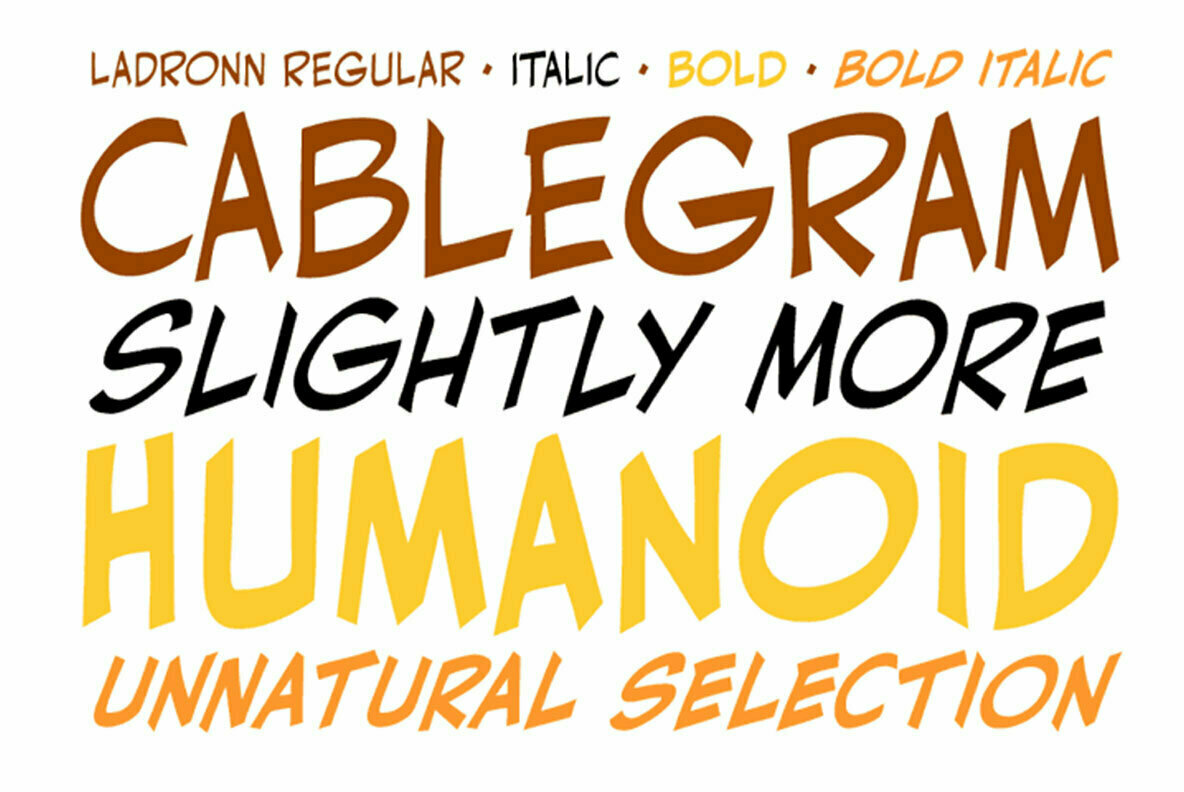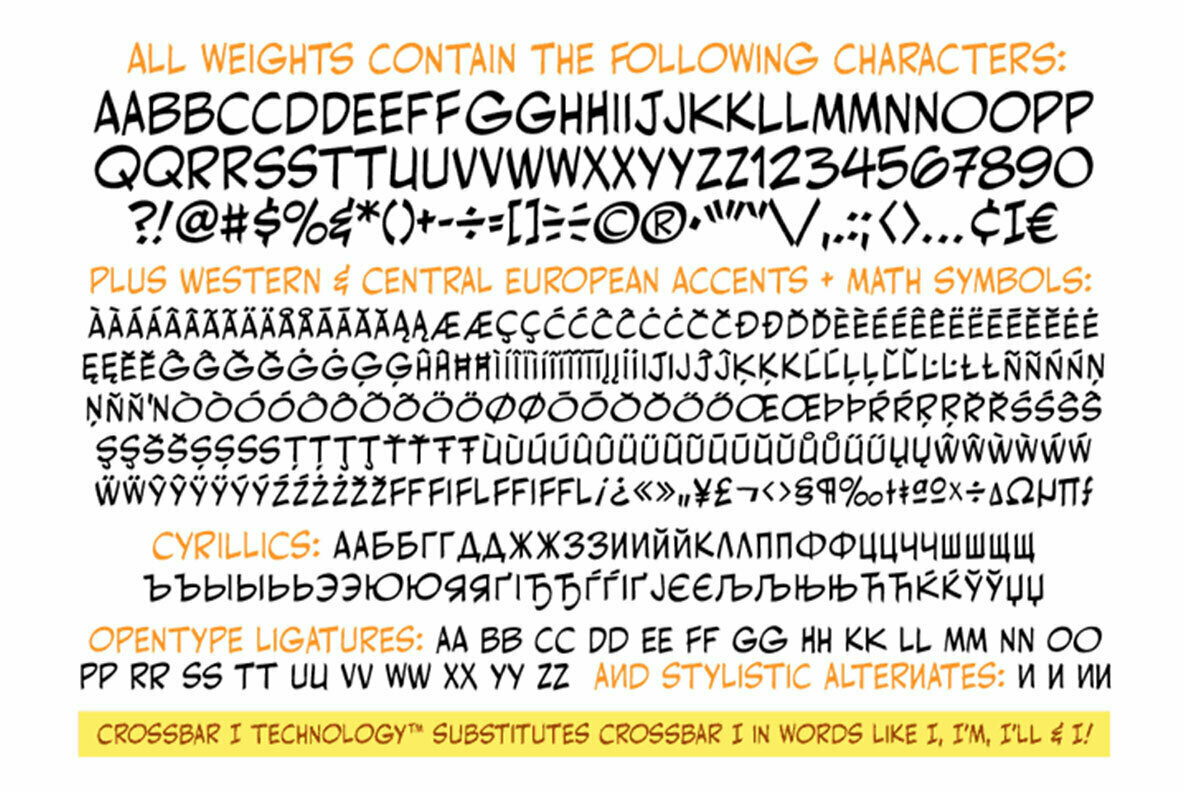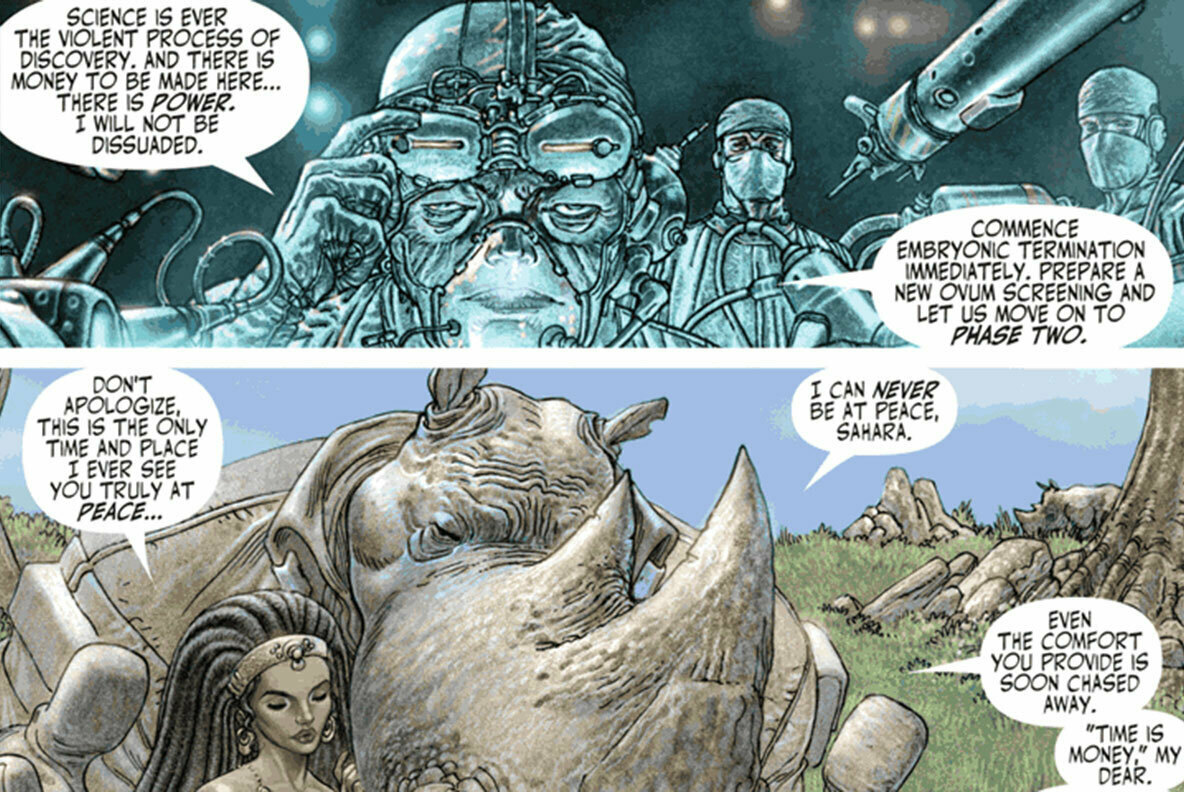
Comicraft first created this font, based on the unique european lettering style of ladronn, for the marvel x-book cable in 1998. it was later upgraded for the inhumans mini-series, and modified again for the hip flask mini-series in 2002. in 2018, we remastered it for the new lost in space series from legendary, with improved spacing and kerning, an additional bold weight, and our patented crossbar i technology to automatically place the crossbar i in the right spot!